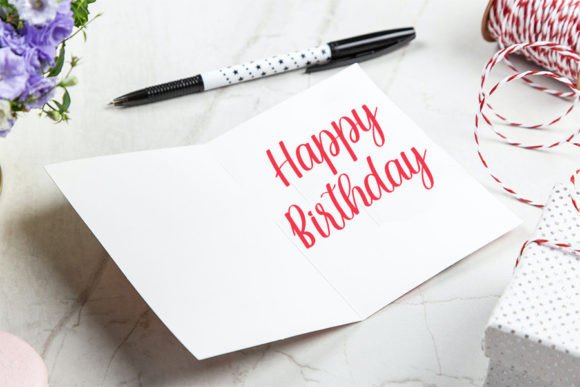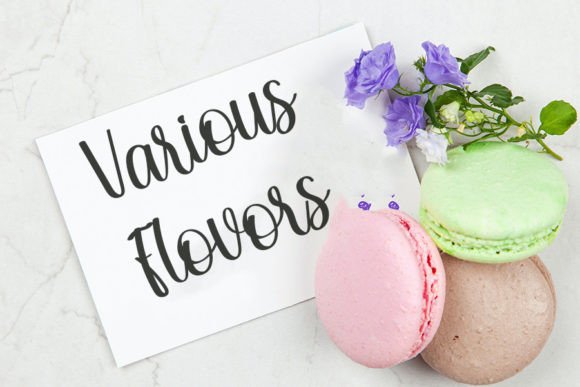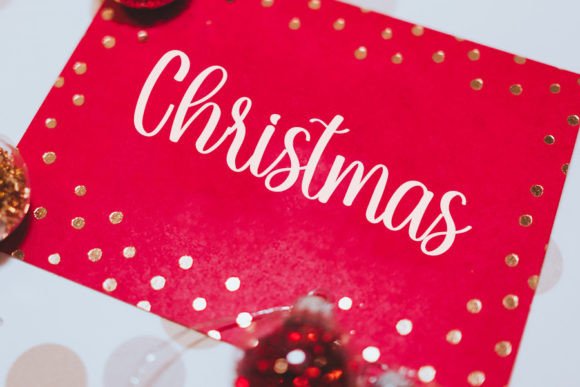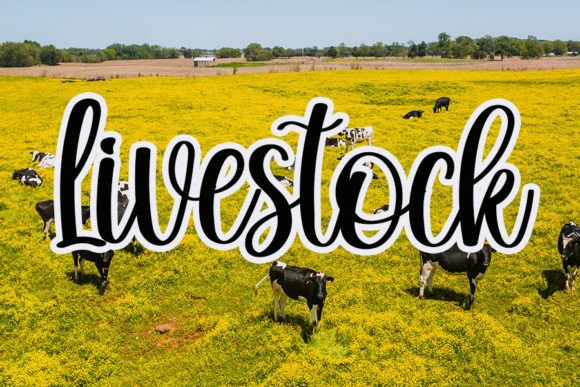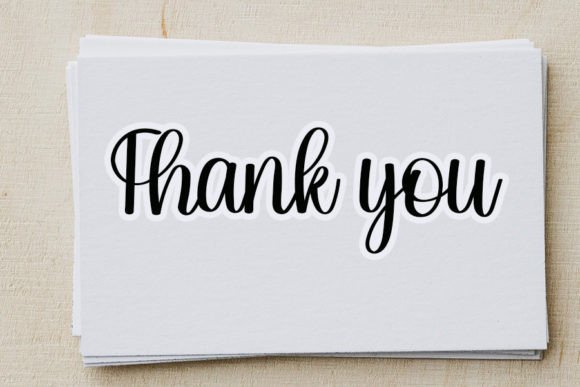
Thinking Font
Discover the Charm of Thinking Font
Thinking Font is a delightful handwritten typeface that brings a sense of warmth and balance to your creative projects. Designed with care and attention to detail, this font features smooth, rounded curves and a casual yet polished style. Whether you’re working on a planner layout or branding a lifestyle product, Thinking Font adds just the right amount of personality.
Its playful yet clean aesthetic makes it incredibly versatile. Moreover, the consistent letterforms ensure legibility, even at smaller sizes. This balance of charm and functionality makes Thinking Font a top choice among creatives.
Where Can You Use Thinking Font?
One of the most appealing aspects of Thinking Font is its wide range of applications. Because of its friendly and casual style, it fits seamlessly into both personal and professional designs. You can use Thinking Font for:
• “1482”>Planners and journals
• -start=”1487″ data-end=”1517″>Logos and brand identities
• Social media graphics and captions
• Invitations and greeting cards
• Stickers and digital downloads
• Product packaging and custom merchandise
In all these cases, the font enhances the visual experience while maintaining an approachable tone. It’s ideal for projects that aim to feel handmade and relatable.
Why Designers Love ThinkingFont
What sets ThinkingFont apart is its ability to add a personal touch without looking unprofessional. Many handwritten fonts tend to lean either too rough or too decorative. However, ThinkingFont strikes the perfect middle ground. It’s structured enough to look polished but still feels like it was written by hand.
Designers often pair it with clean sans-serif fonts to create a harmonious and dynamic look. Additionally, it works well in monochrome as well as colorful compositions.
Elevate Your Next Design with ThinkingFont
From wedding invitations to planner pages, ThinkingFont can do it all. Its balanced weight and pleasant character make it a joy to use. If you’re looking to add a touch of charm to your typography without sacrificing readability, this typeface is the perfect choice.